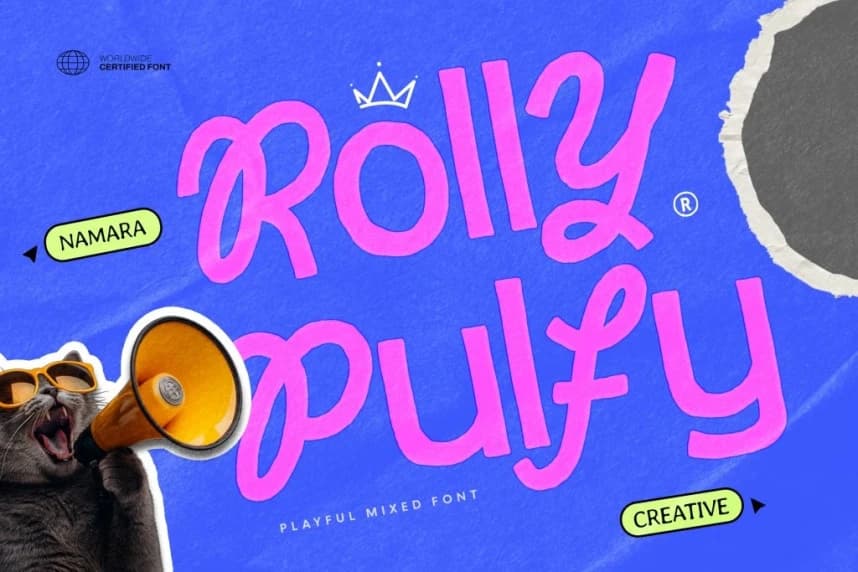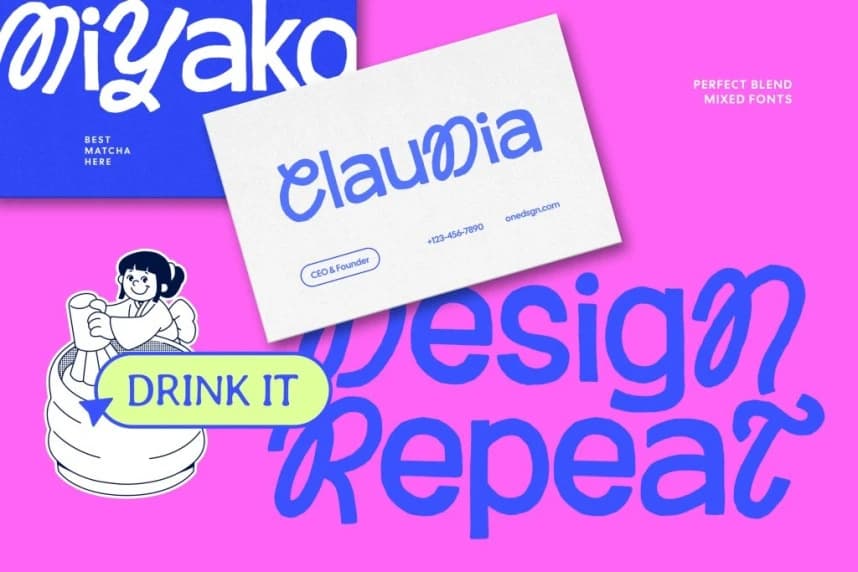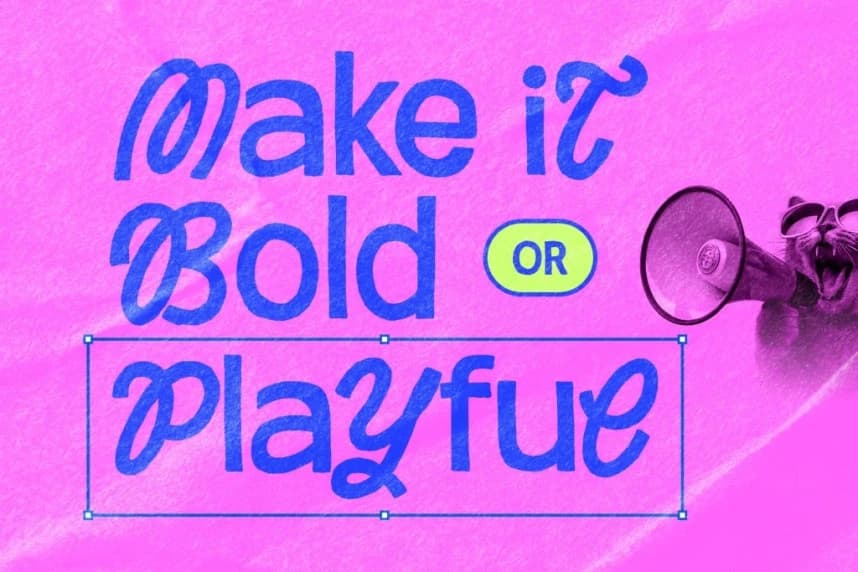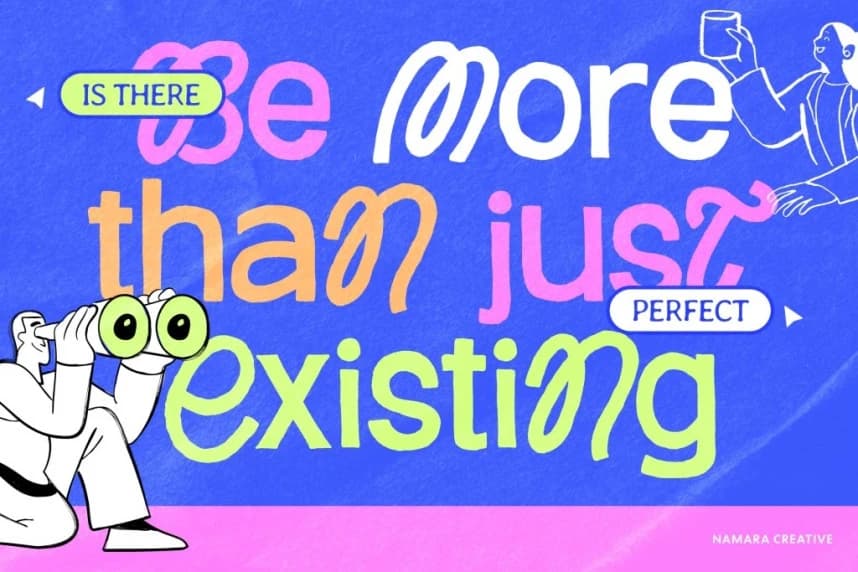
Rolly Pulfy Font
Rolly Pulfy Font- Playful hybrid sans typeface designed to bring joy, personality, and modern charm into your designs. Blending clean sans-serif structure with hand-drawn, rounded letterforms, Rolly Pulfy strikes a perfect balance between bold clarity and friendly expression.